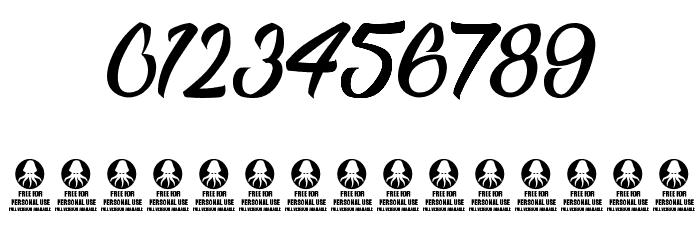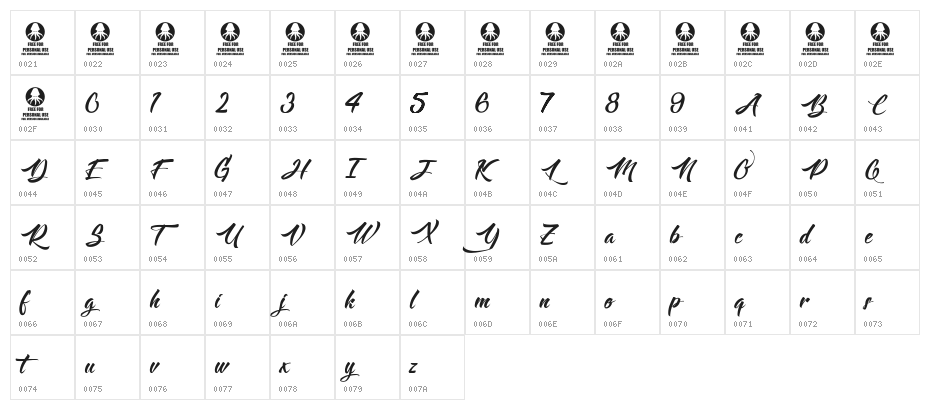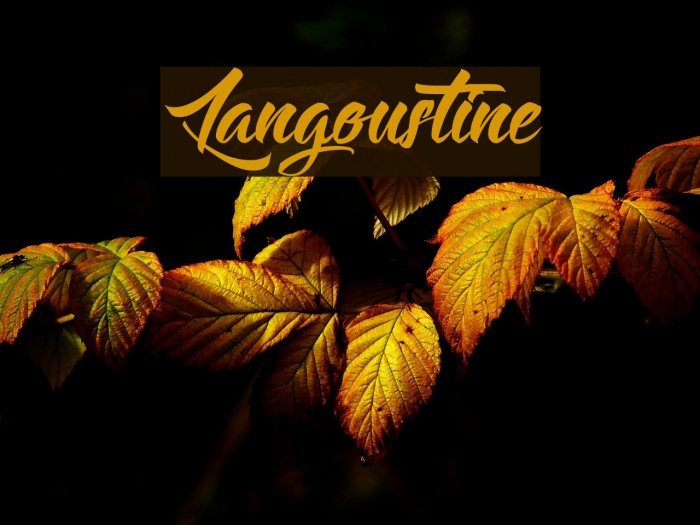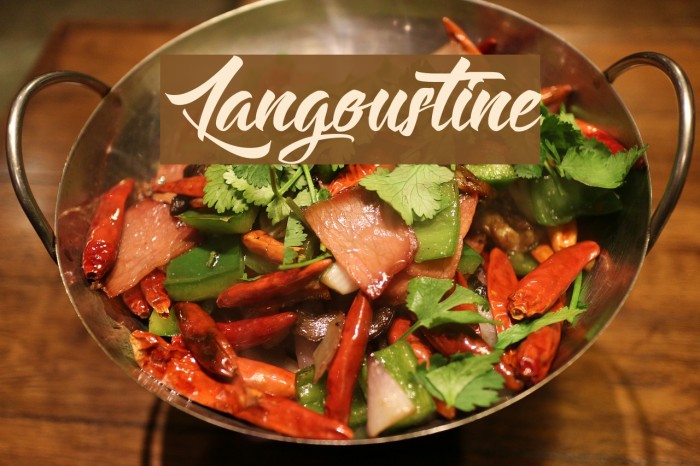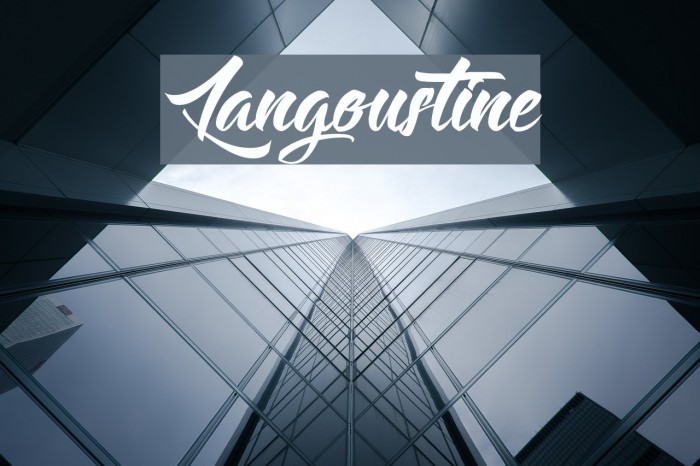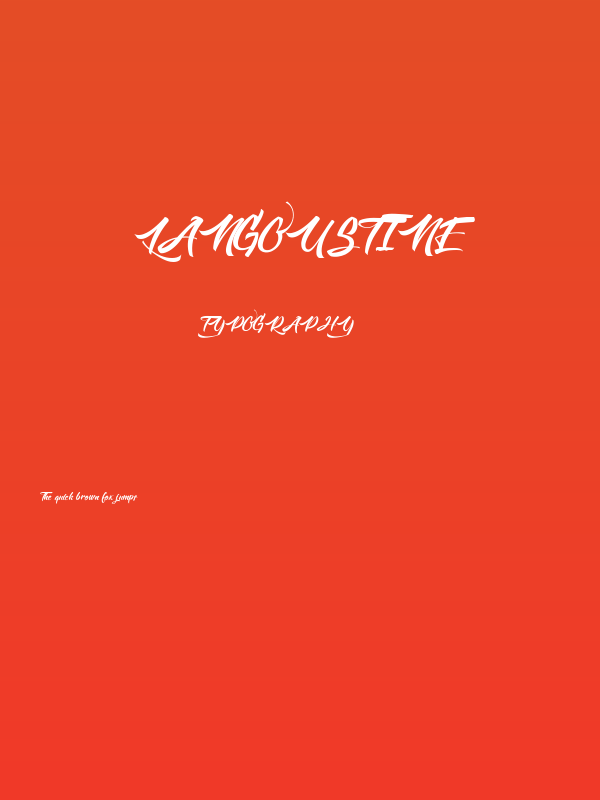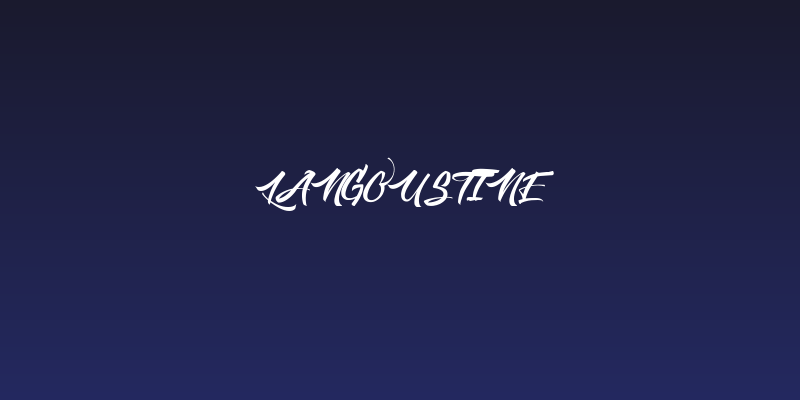
Langoustine Font
Langoustine Description
This font exudes a dynamic and elegant script style, characterized by its fluid and flowing letterforms. The uppercase letters are bold and sweeping, with dramatic flourishes that add a sense of movement and sophistication. The lowercase letters maintain a consistent style, offering a harmonious blend of curves and angles that enhance readability while retaining an artistic flair. The numerals are equally stylized, ensuring they match the overall aesthetic. This font is ideal for projects that require a touch of elegance and personality, such as invitations, branding, and decorative headlines.
| Overall Style | Elegant, Artistic |
| Use Case | Headlines, Invitations, Branding |
| Proposed Projects | Ideal for wedding invitations, branding, decorative headlines, and artistic projects. |